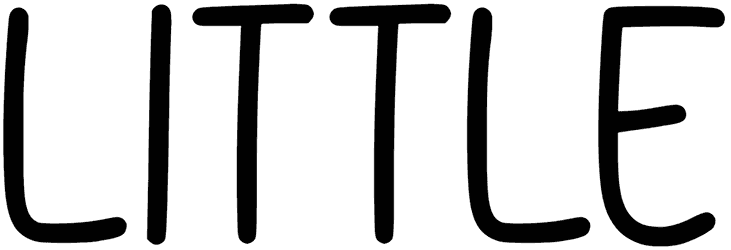
Little Font
Make your design stand out from the crowd by using our new handwritten font, Little. This is a charming, friendly farmhouse font that has a pretty neat structure. Unfortunately, it doesn’t support lowercase letters, but don’t worry, because it will look gorgeous in any project exclusively. You can choose it for creating party invitations, homeware designs, greeting cards, product packaging, and also branding concepts.